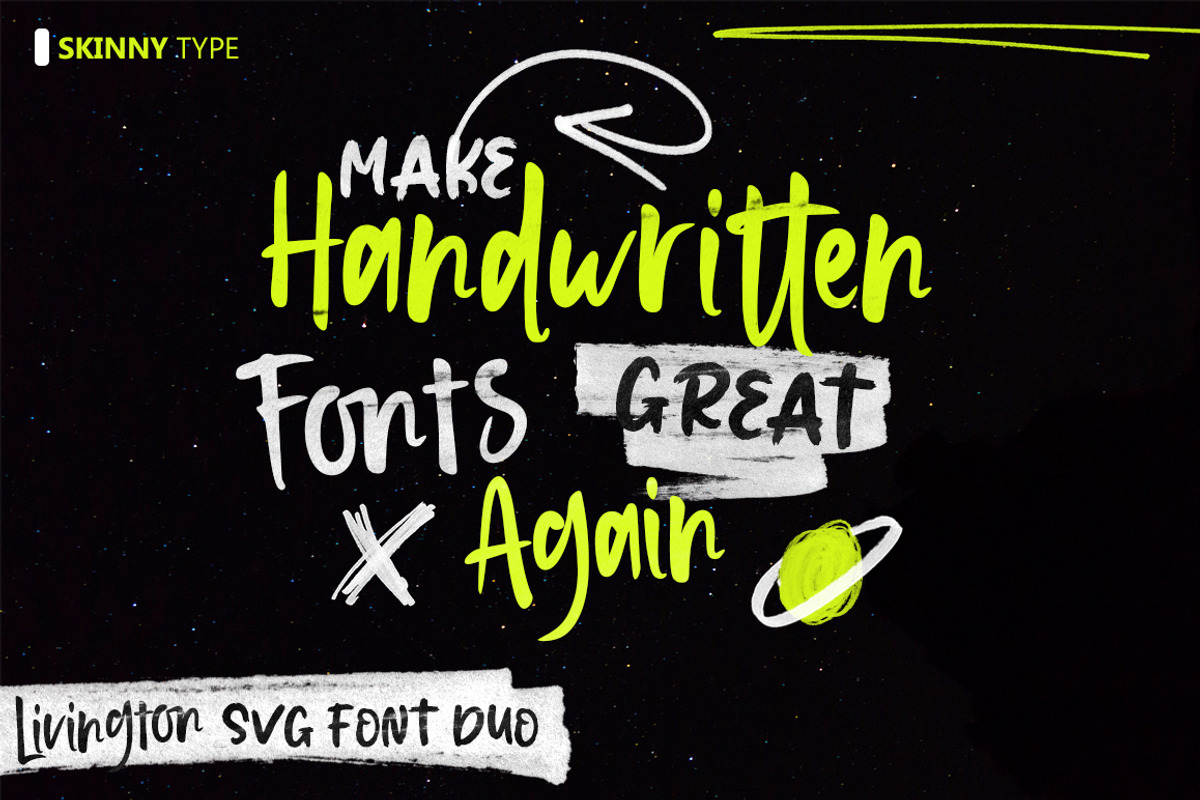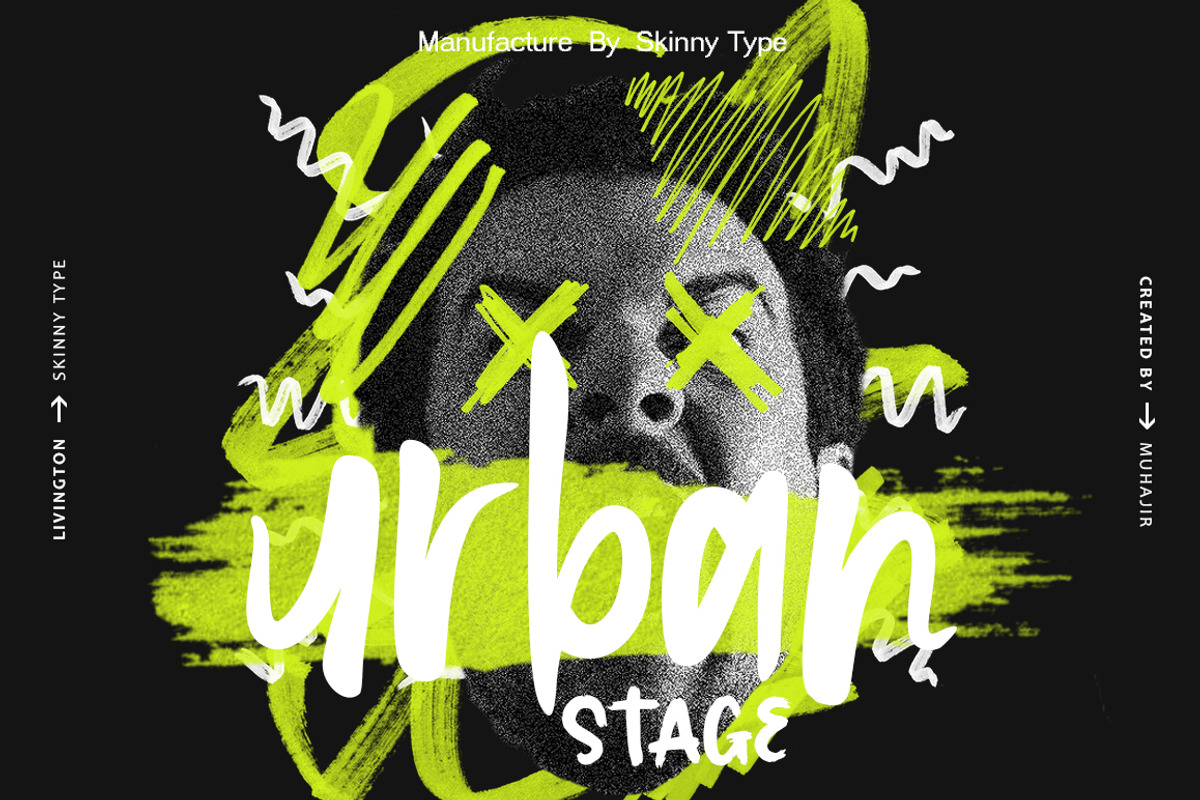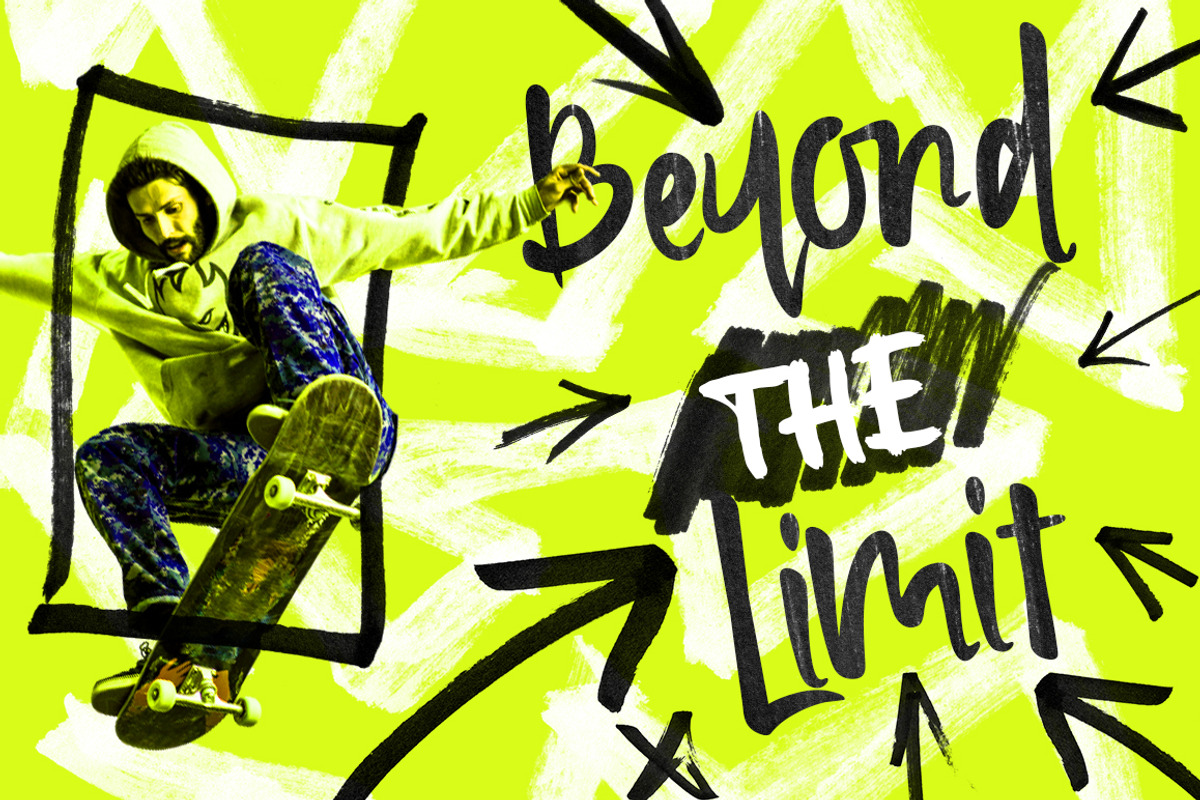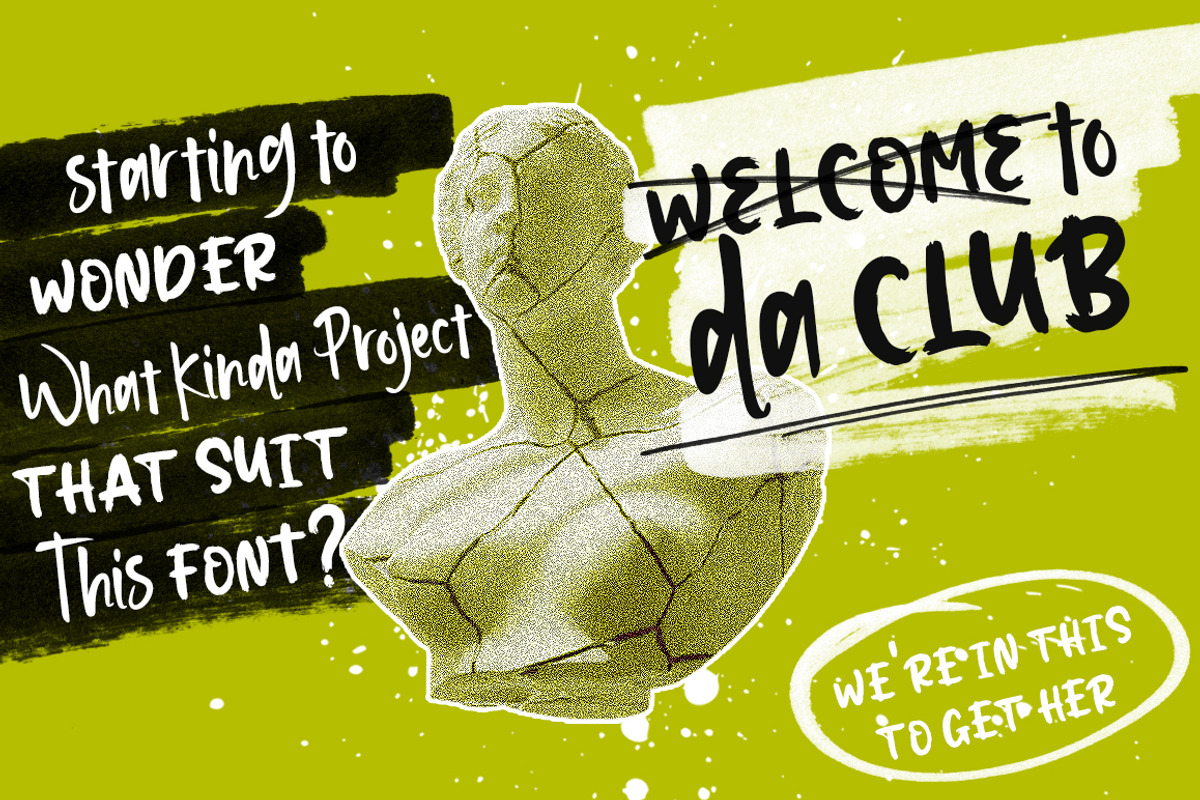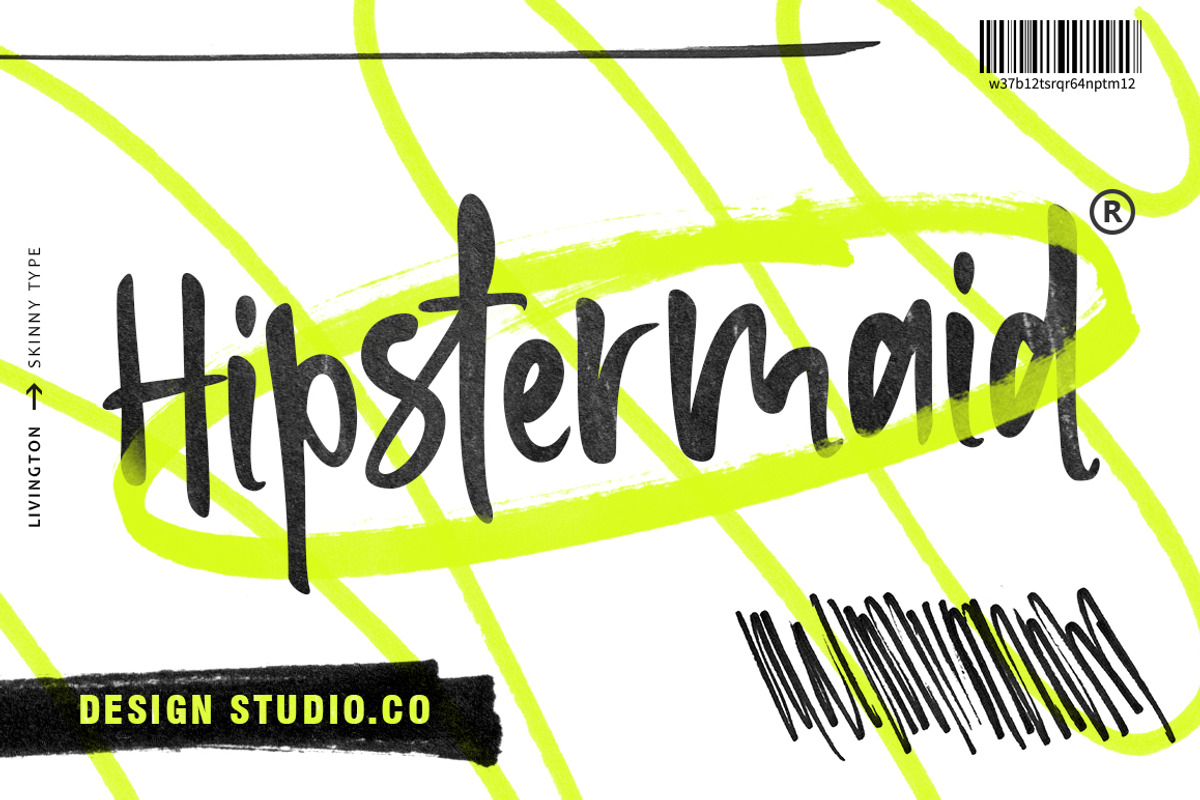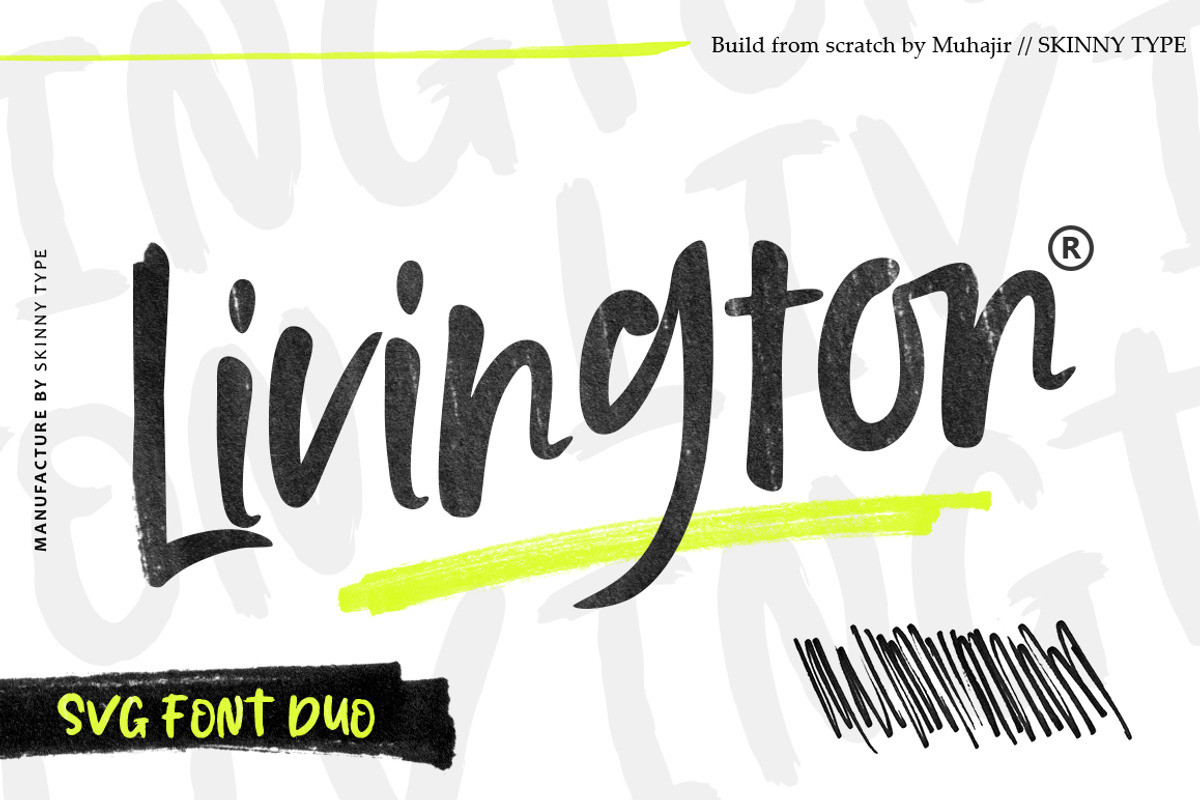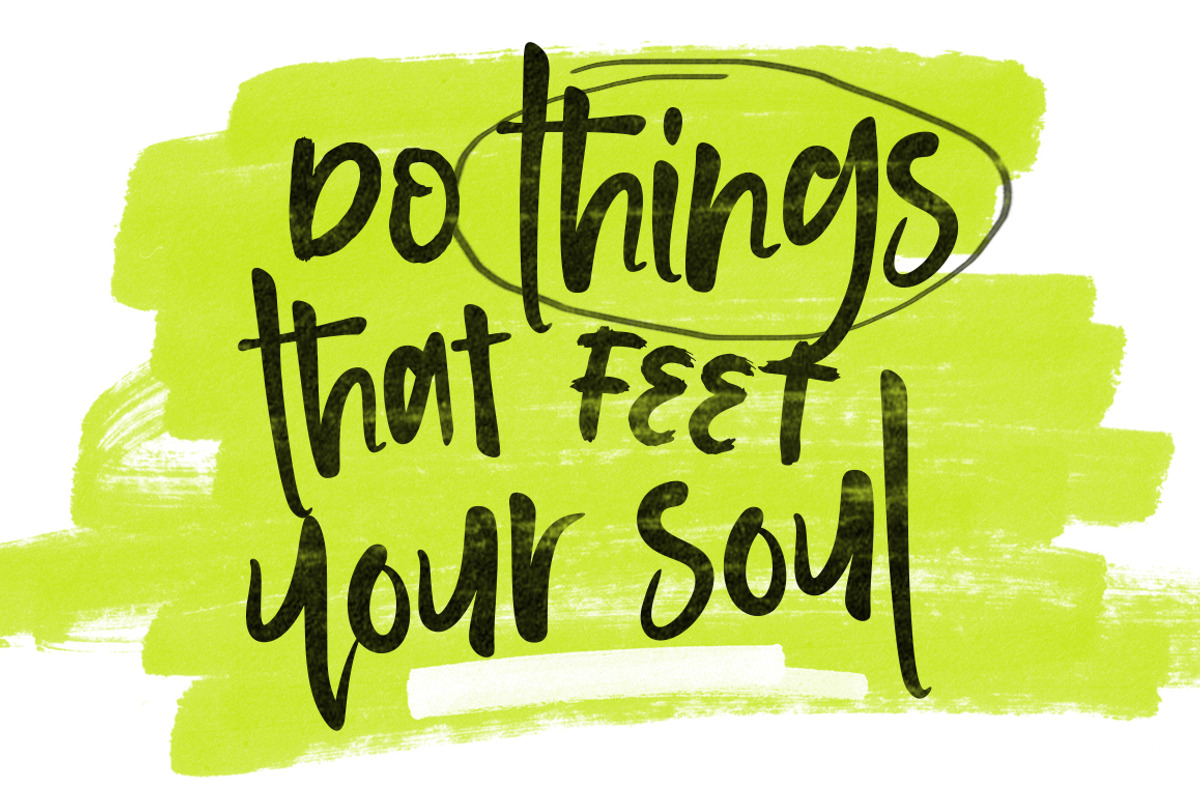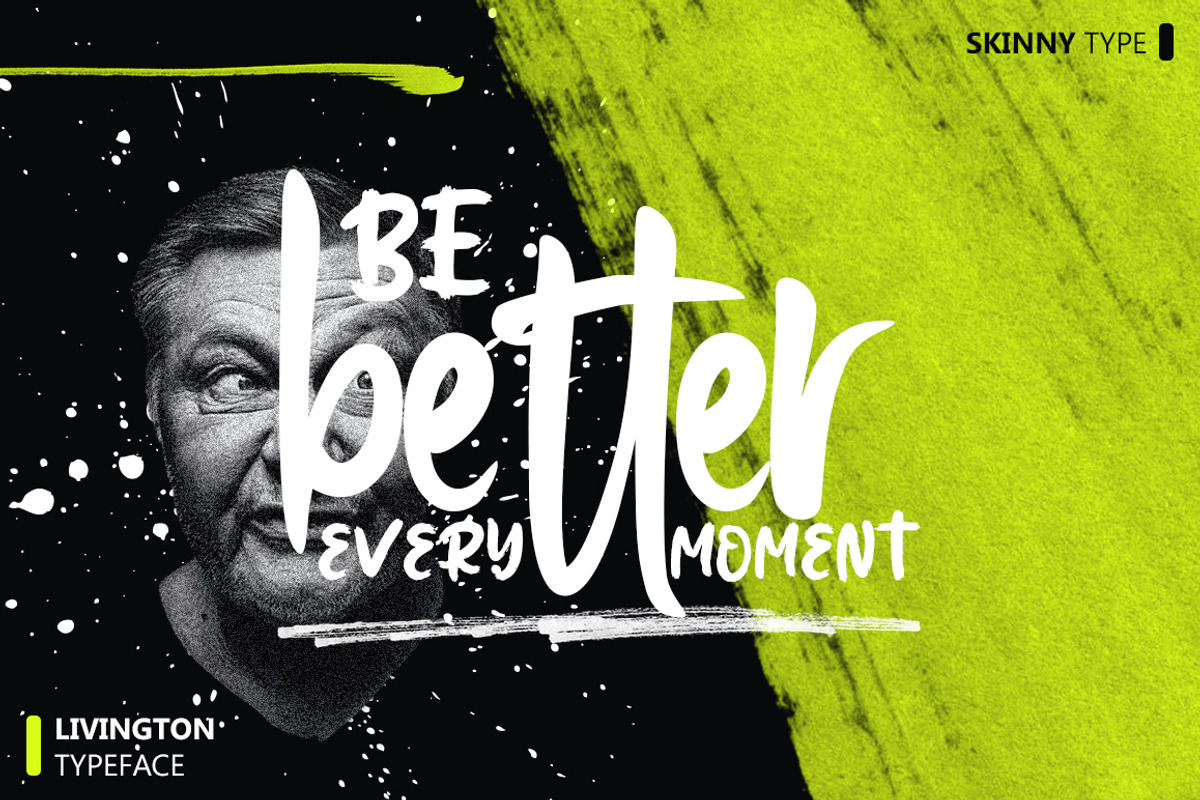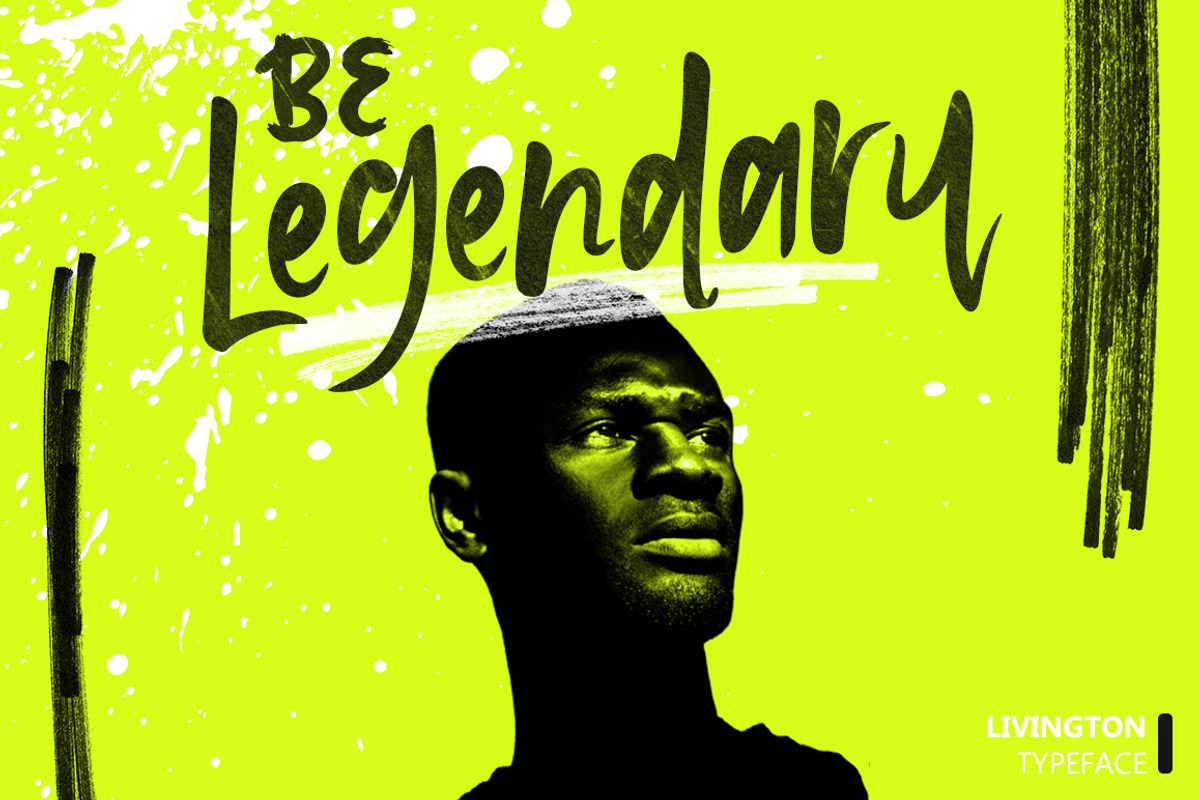
Livington - SVG Font Duo
Livington is a handwritten SVG font that has the look and feel of a true hand drawing. The handwritten Livington font requires Photoshop CC 2017 or Illustrator CC 2018 (or later) to work, but the OTF Livington Script doesn't require any special software and can be used on any computer and on any software.
Livington SVG handwriting font
Livington All Caps font
Please note that the Livington SVG Handwritten Font is English only, but Livington's script contains the following characters: aàáâÃäåcçdðeèéêëiìíîïnñoøòóôõöuùüúill, Danish, English, French, German, German (Switzerland), Norwegian Bokmål, Portuguese, Spanish, Swedish, Swiss German.